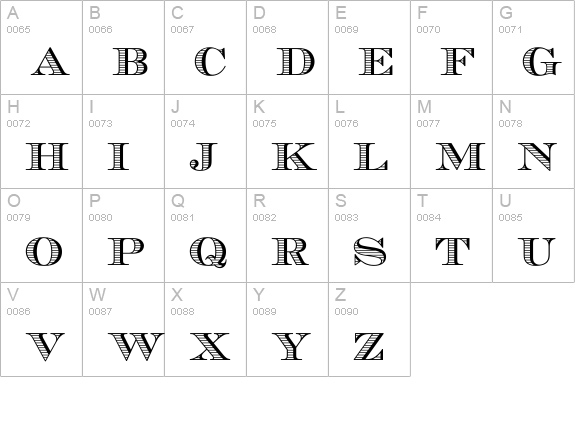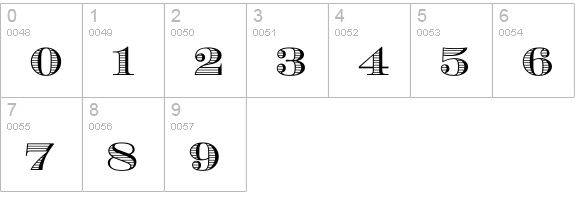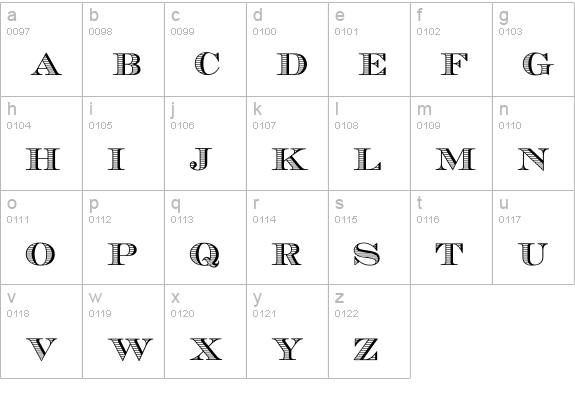
EcuyerDAX is a stunningly elegant and sophisticated font that is sure to capture the attention of any viewer. With its intricate details and graceful curves, this font exudes a sense of timeless beauty and refinement. Designed with the utmost care and precision, EcuyerDAX is perfect for a wide range of design projects, from invitations and wedding stationery to logos and branding materials. Its versatility allows it to seamlessly blend into any creative endeavor, adding a touch of class and elegance. One of the most remarkable aspects of EcuyerDAX is that it is completely free. Yes, you read that right! This exquisite font can be freely downloaded from FontsMarket.com, making it accessible to all designers and enthusiasts, regardless of their budget. Whether you are a professional graphic designer or simply someone who appreciates the beauty of typography, EcuyerDAX is a must-have addition to your font library. Its timeless charm and versatility make it a go-to choice for any project, and the fact that it is freely available to download only adds to its appeal. So, why wait? Head over to FontsMarket.com today and unlock the beauty of EcuyerDAX. Let its elegance and grace elevate your designs to new heights, all while enjoying the freedom and accessibility that comes with a free download.